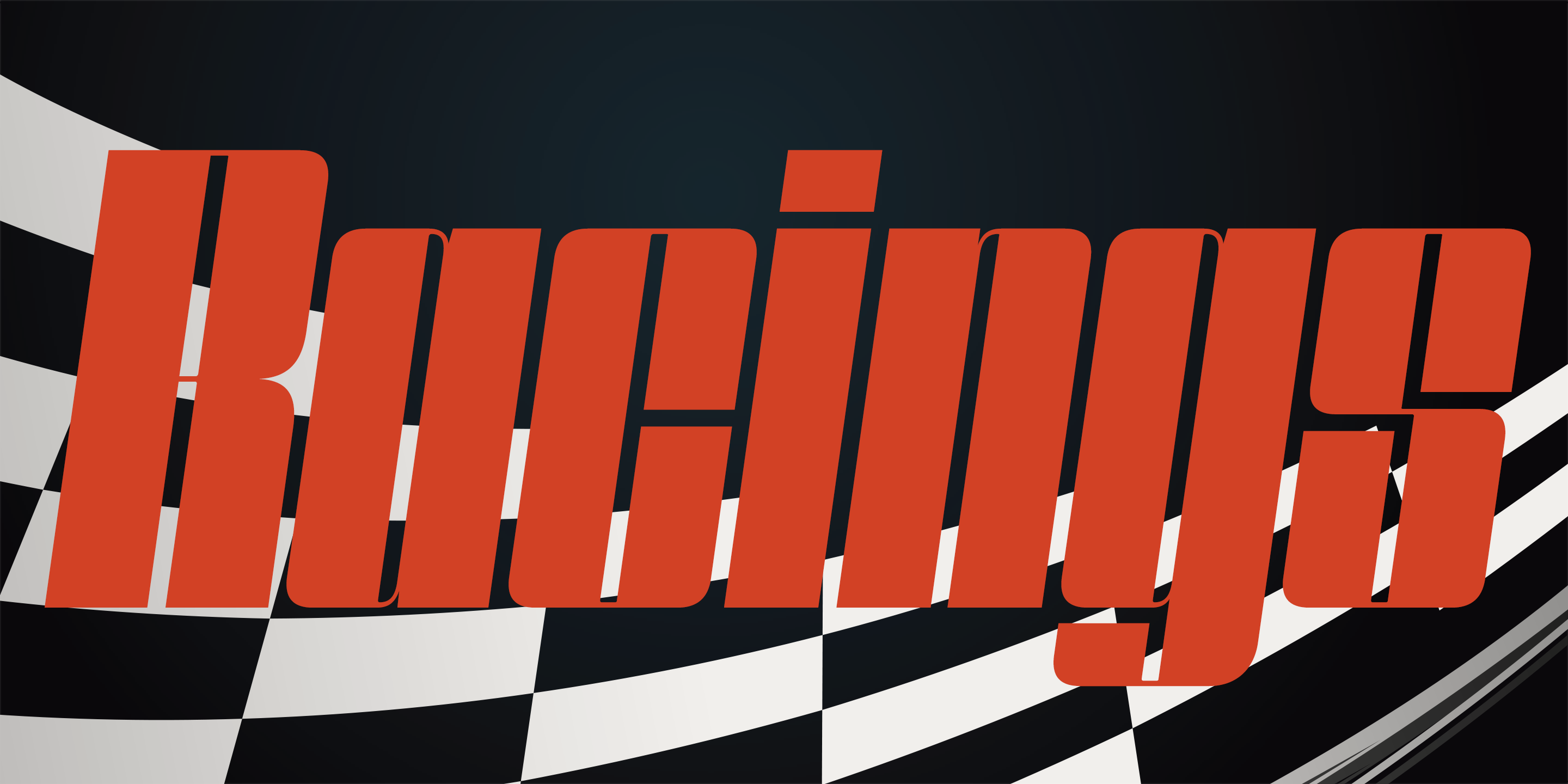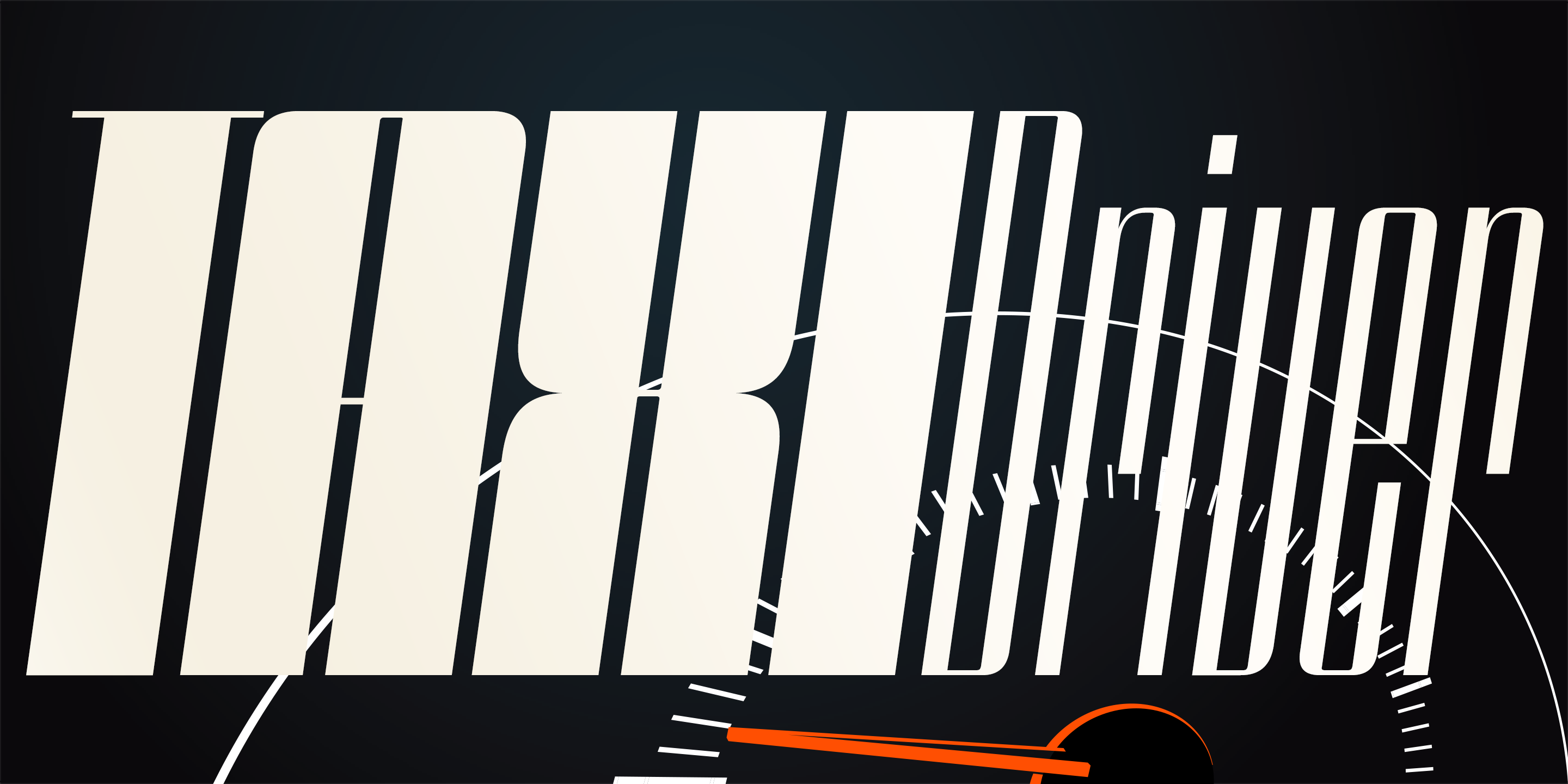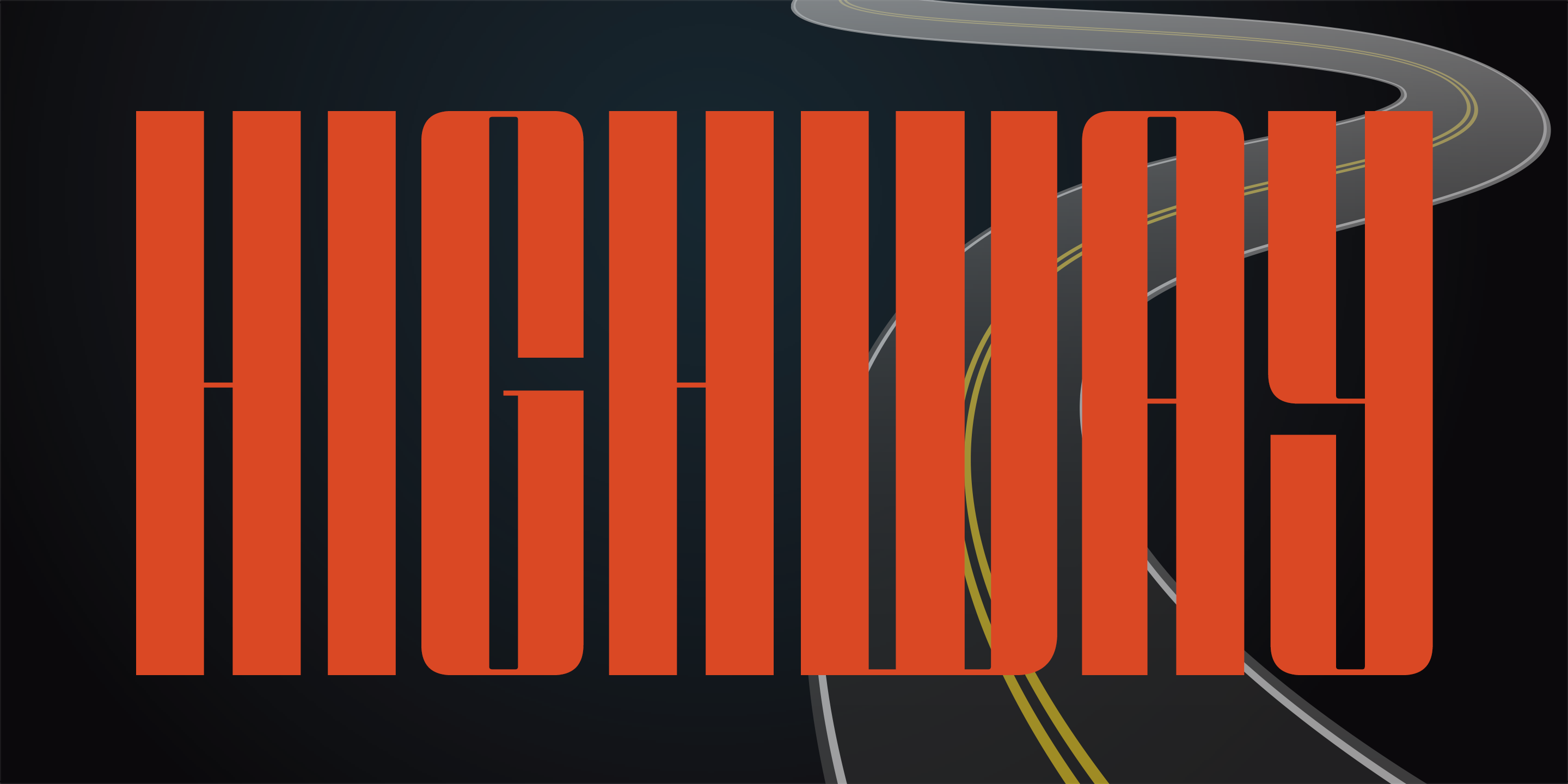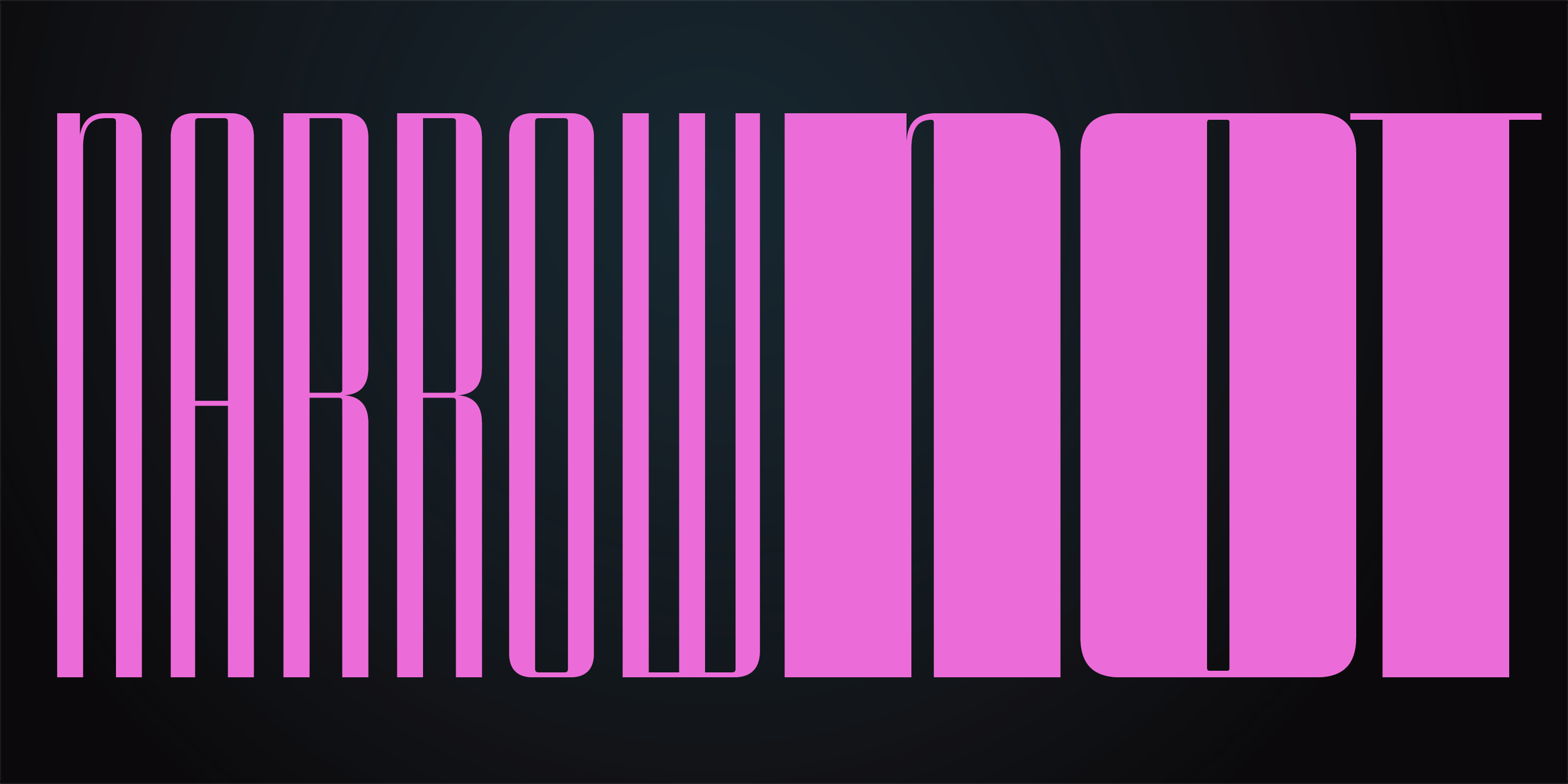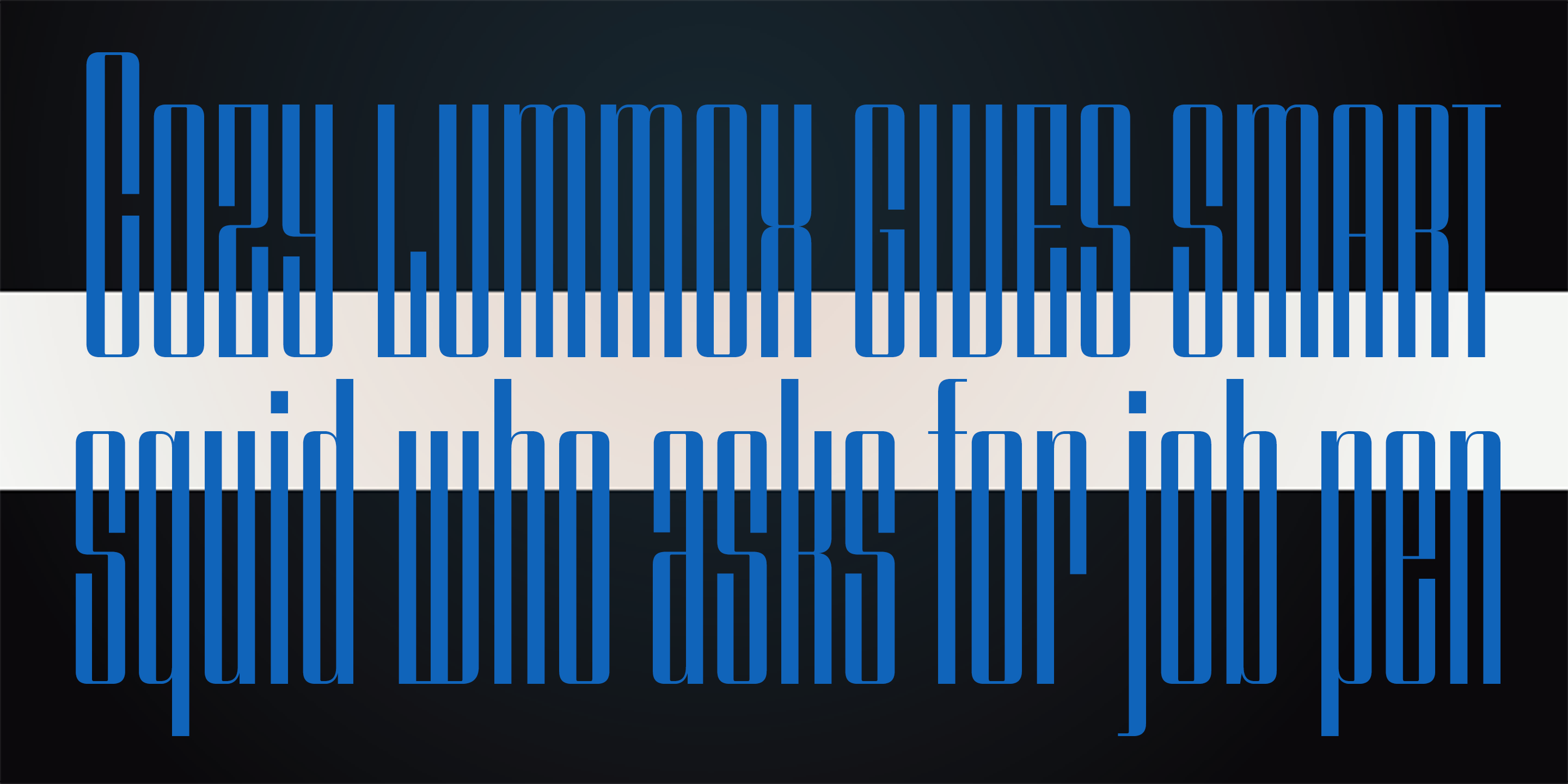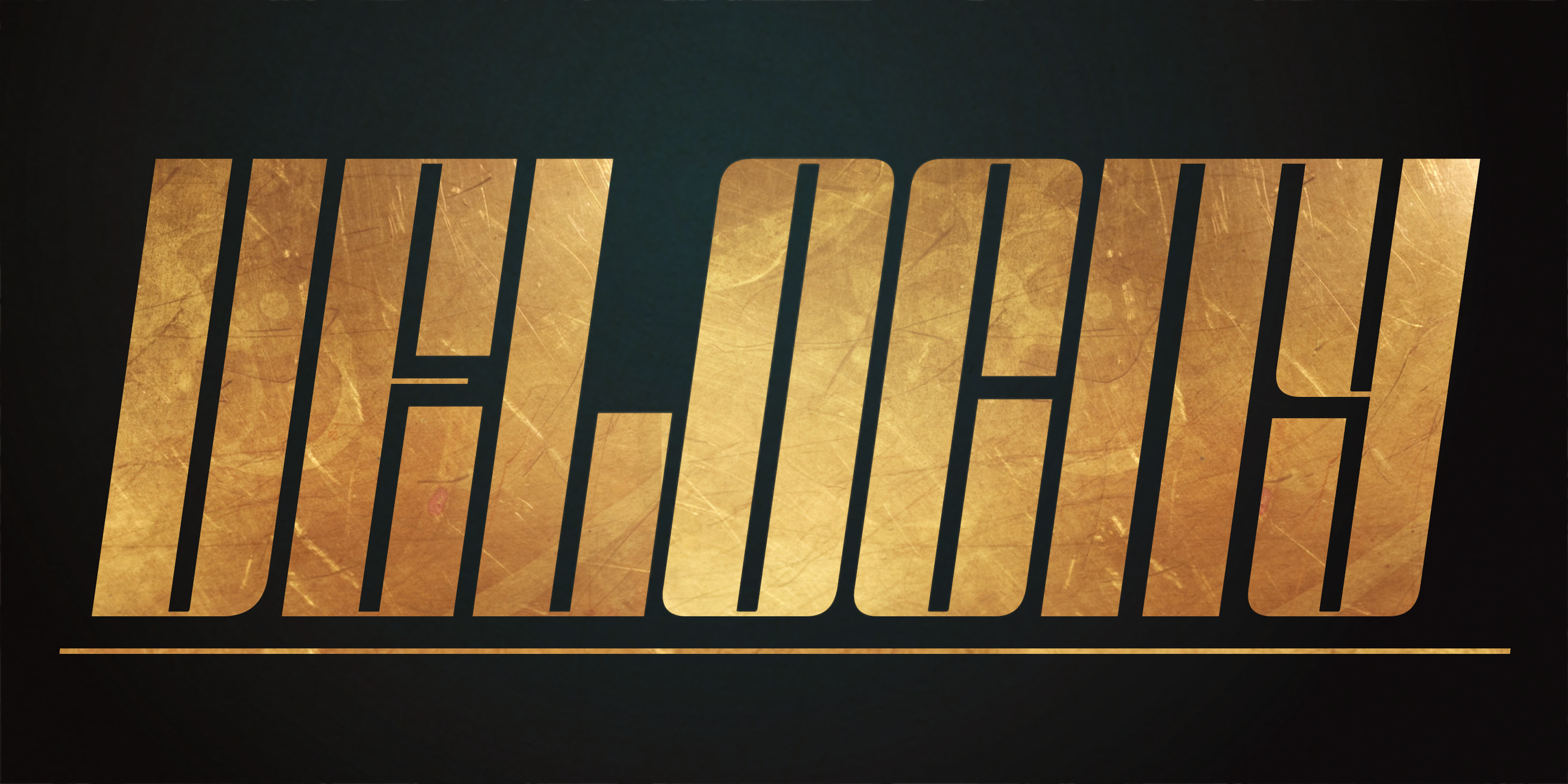
This contrast makes the design more vigorous and interesting. All 6 weights have corresponding italics, upper and lower case characters, accents and small capital glyphs. Set at larger sizes, Speedometer is impressive and has a very 1930's look and feel.